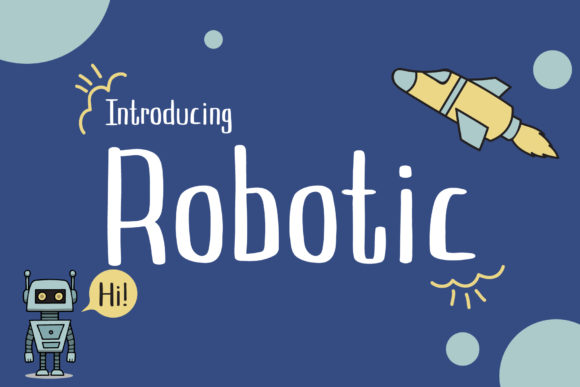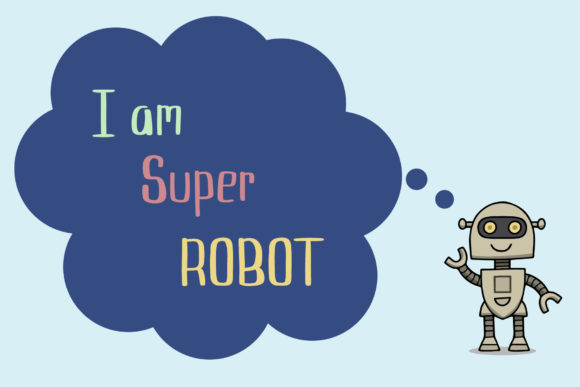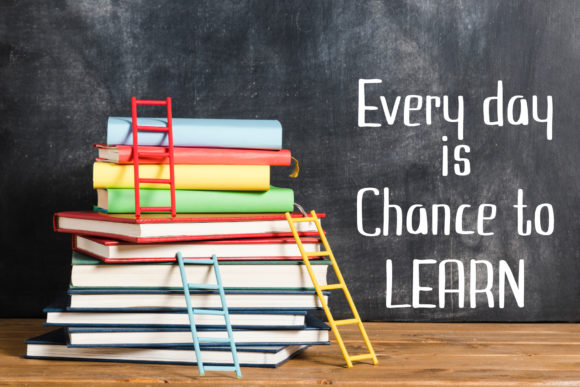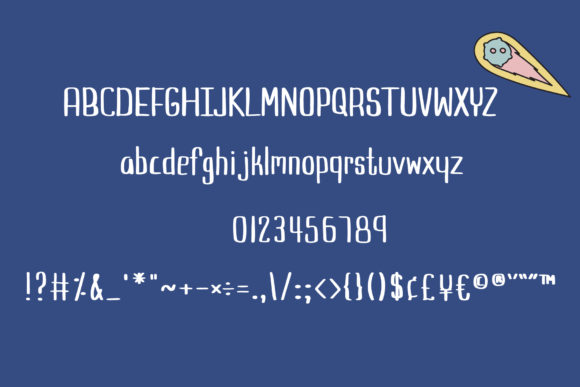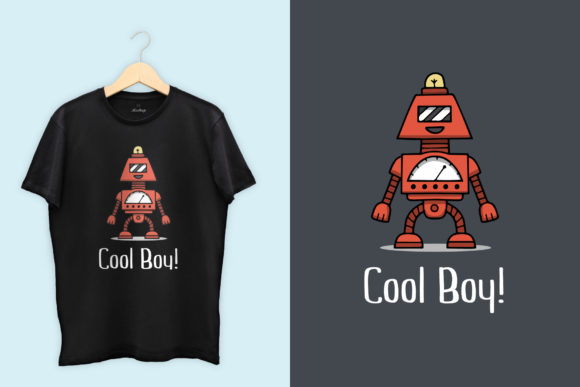
Robotic Font
About Robotic Font
Robotic is a fun and original handwritten font. It’s perfect for posters, t-shirt, labels, quotes, badges, etc. It will take your crafting projects to the next level!